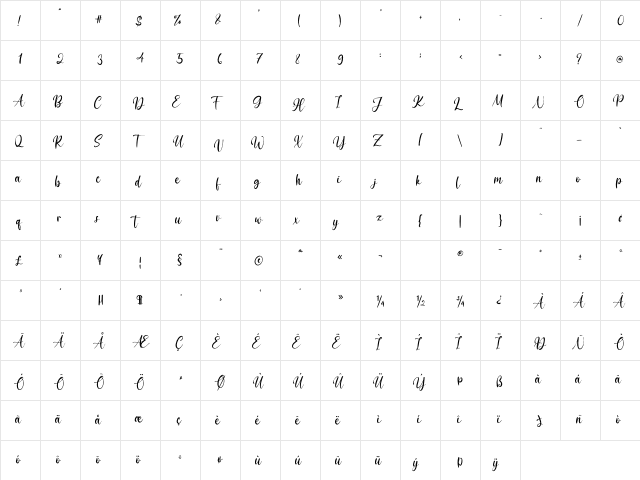
Black Pearl Regular
| Foundry | Kong Font |
| Designer | Typeface騋ong Font).2020 |
Design Context for Black Pearl Typeface
Black Pearl is a composed and adaptable typeface that performs quietly and consistently across a wide range of design contexts.